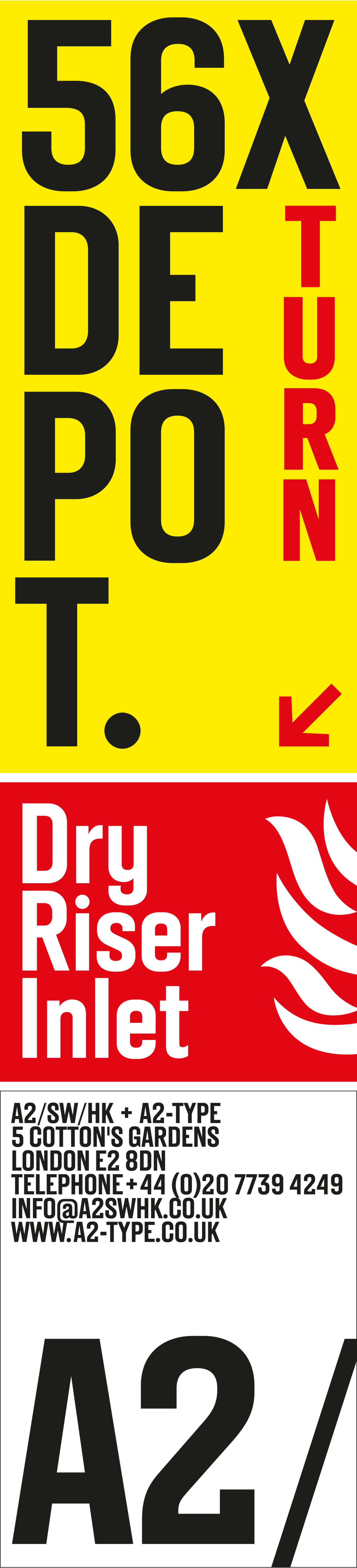
A2 Gothic is based on an early Grotesk font we designed for our original letterhead in early 2000. This font is part of the A2 Gothic font family (A2 Gothic Condensed and A2 Gothic X Condensed). Part of the system was recently customised for special use by CNN online.
| Font category: | Sans |
| Styles: | Thin Light Regular Medium Semibold Bold Extrabold Black |
| Designer: | Henrik Kubel |